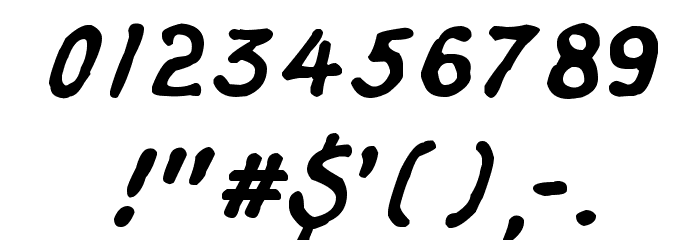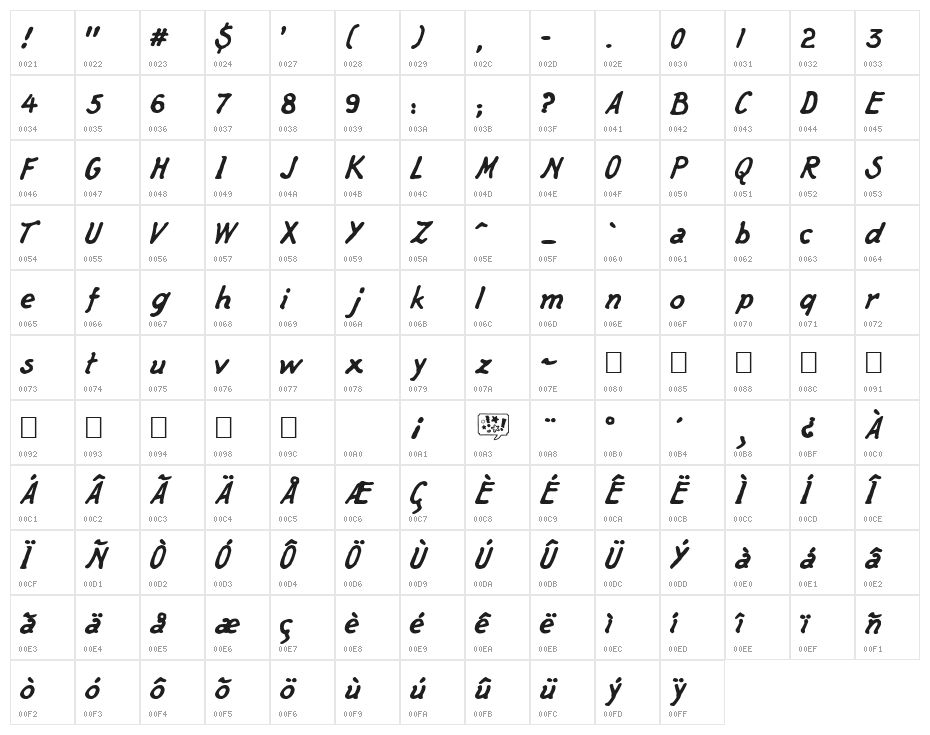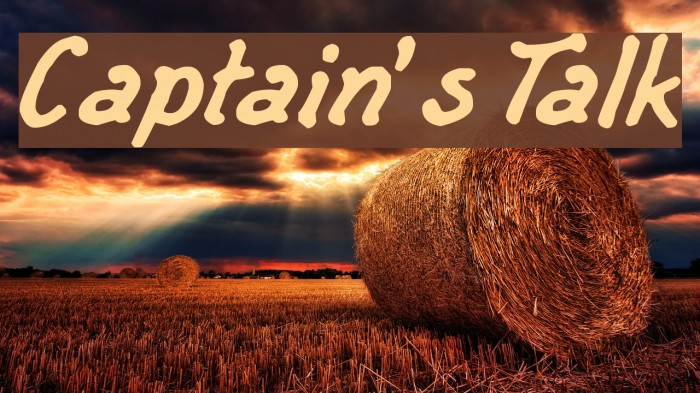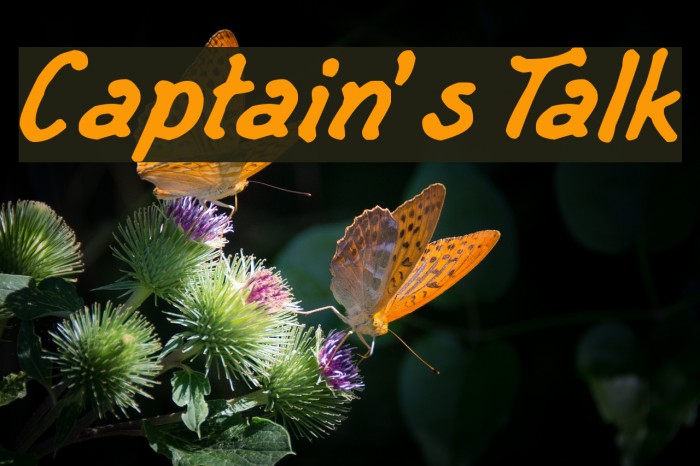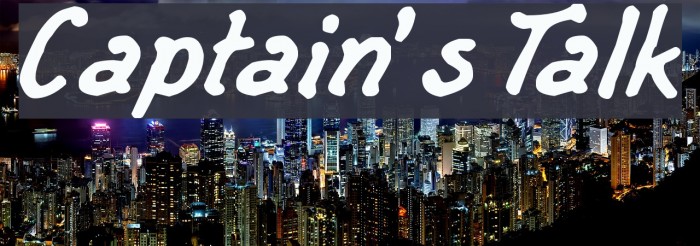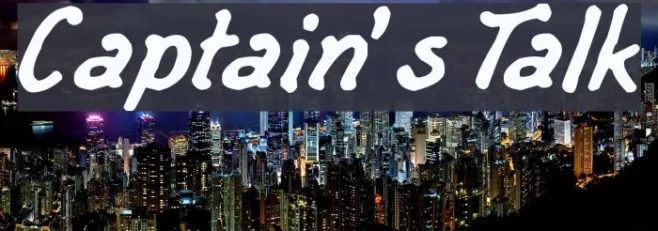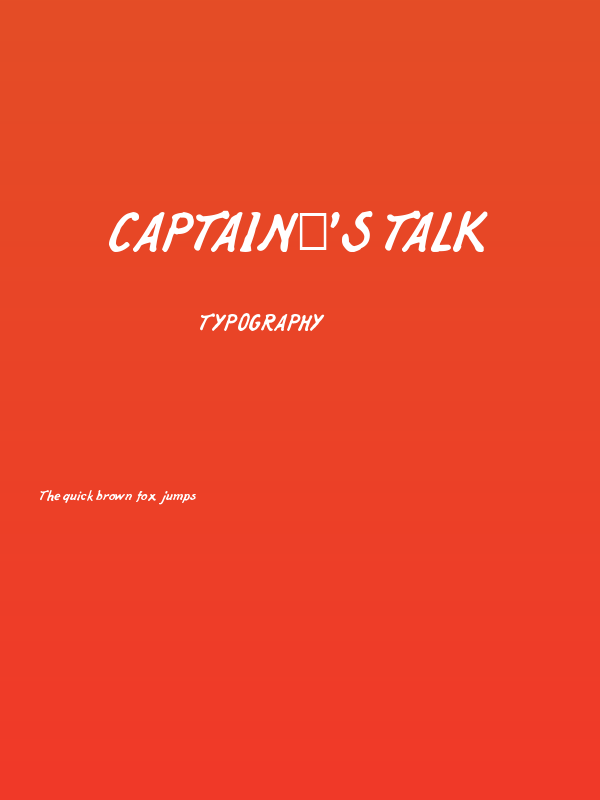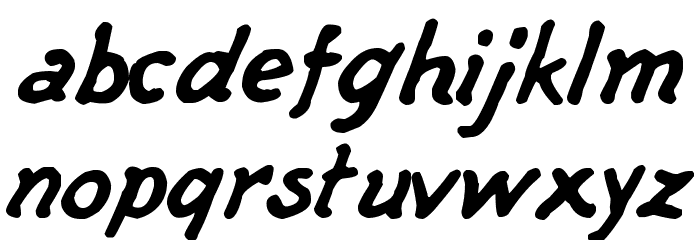
Captain's Talk Font
Captain's Talk Description
This font exudes a playful and energetic vibe with its bold, handwritten style. The characters are slightly slanted, giving a sense of movement and dynamism. The strokes are thick and consistent, providing a strong visual impact. The uppercase and lowercase letters maintain a cohesive look, while the numerals and special characters blend seamlessly with the overall design. The font's casual and informal appearance makes it ideal for projects that require a personal touch or a creative flair.
| Proposed Projects | Great for greeting cards, children's books, playful branding, and creative posters. |